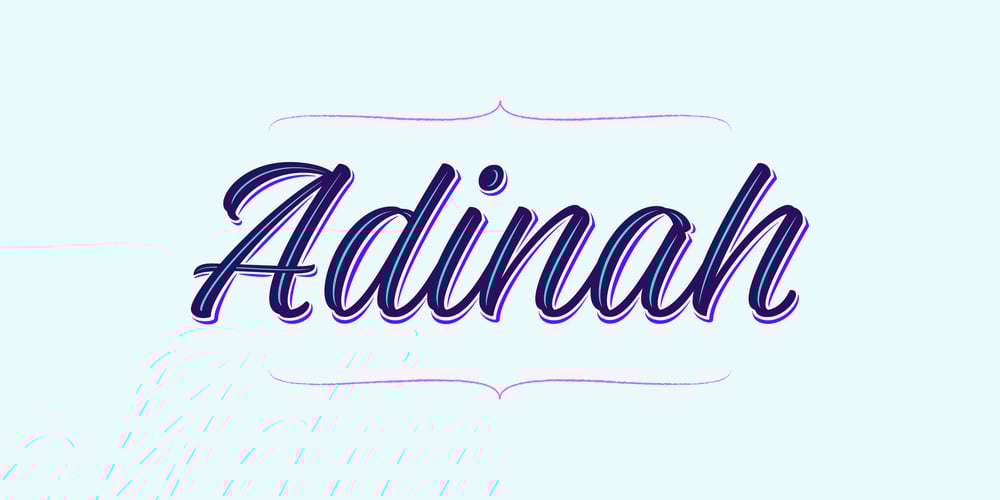
Adinah Font Family was designed by Andrew Lethbridge and published by Brink. Adinah contains 14 styles and family package options. Adinah is a lively brush script with a strong sense of rhythm. Adinah’s expressive letterforms are based on pointed brush calligraphy with a hint of sign painting. This Sign painting influence reveals itself the further you dig into the family styles. Eight combined styles are complimented by a sub family of Six Layered Font options.